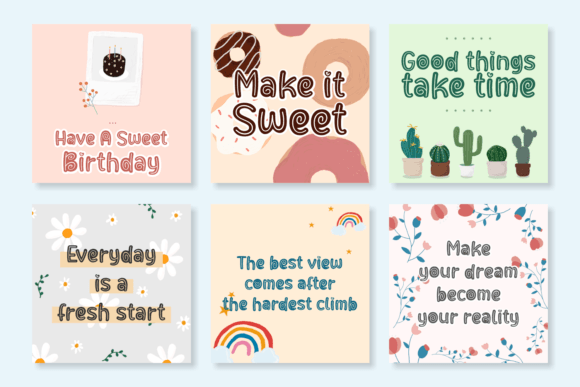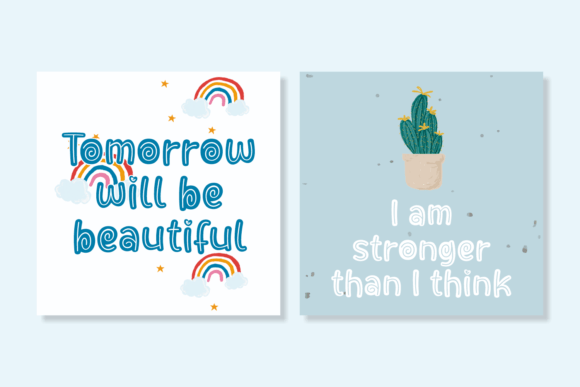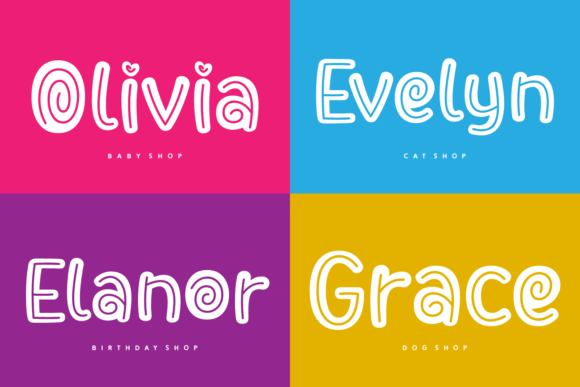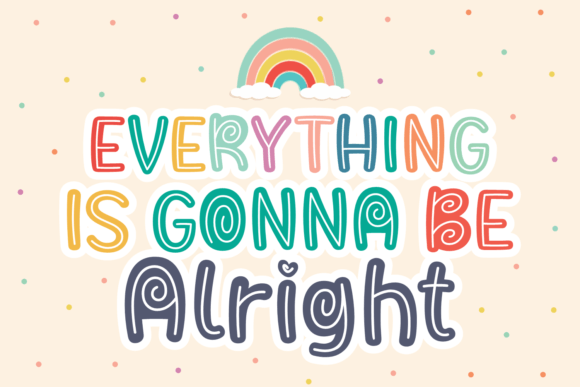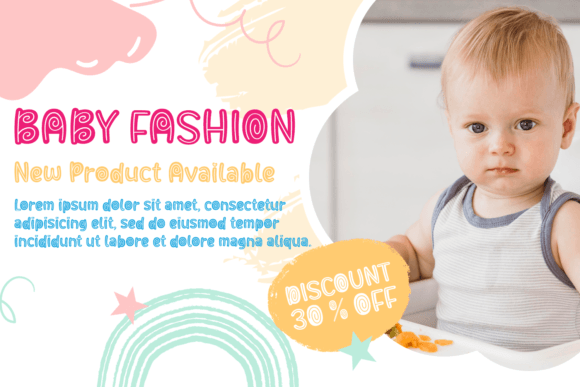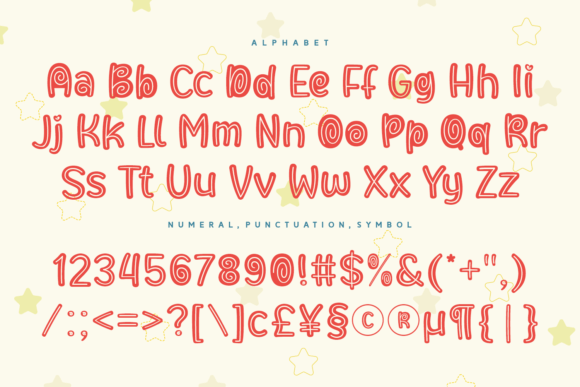
Introducing Hello Bright Font: The Perfect Choice for Creative Typography
Hello Bright Font is a stunning and curly display font that is sure to capture the attention of designers and crafters alike. With its sweet and friendly demeanor, this typeface is perfect for creating outstanding typography that stands out from the crowd. Whether you’re working on branding projects, greeting cards, invitations, websites, posters, or any other creative endeavor, Hello Bright Font is the ideal choice.
What Makes Hello Bright Font So Special?
Hello Bright Font boasts a unique and beautiful curly design that adds a touch of elegance and sophistication to any project. Its sweet and friendly tone makes it perfect for a wide range of applications, from playful and whimsical to serious and professional. The font’s excellent legibility ensures that your message is conveyed clearly and effectively, making it an excellent choice for designers and crafters who want to make a lasting impression.
Key Features of Hello Bright Font
- Beautiful and Curly Design: Hello Bright Font features a stunning curly design that adds a touch of elegance and sophistication to any project.
- Sweet and Friendly Tone: The font’s sweet and friendly tone makes it perfect for a wide range of applications, from playful and whimsical to serious and professional.
- Excellent Legibility: Hello Bright Font is designed with excellent legibility in mind, ensuring that your message is conveyed clearly and effectively.
- Versatile and Flexible: This font is perfect for a wide range of projects, including branding, greeting cards, invitations, websites, posters, and many more.
Hello Bright Font is an excellent choice for designers and crafters who want to add a personal touch to their projects. With its unique and beautiful design, this font is sure to inspire creativity and bring a touch of elegance to any project. Whether you’re working on a branding project, creating greeting cards, or designing a website, Hello Bright Font is the perfect choice.
Benefits of Using Hello Bright Font
- Stand Out from the Crowd: With its unique and beautiful design, Hello Bright Font is sure to make your project stand out from the crowd.
- Add a Personal Touch: This font allows you to add a personal touch to your project, making it more engaging and memorable.
- Increase Creativity: Hello Bright Font is sure to inspire creativity and bring new ideas to your project.
- Save Time: With its excellent legibility and versatility, Hello Bright Font can save you time and effort in your design work.
Hello Bright Font is a beautiful and curly display font that is perfect for creating outstanding typography. With its sweet and friendly tone, excellent legibility, and versatility, this font is an excellent choice for designers and crafters alike. Whether you’re working on branding projects, greeting cards, invitations, websites, posters, or any other creative endeavor, Hello Bright Font is sure to make a lasting impression.